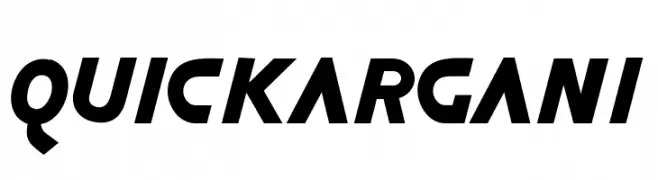
( Jos Schoot Uiterkamp - www.behance.net/JSU )
A bold, hand-drawn font with a rugged, adventurous style.
( K. Bishop Martinez )
A bold serif font with strong vertical strokes and a classic yet modern appeal.
( Lene Arensdorff )
A playful, hand-drawn font with an ink-splattered, grungy style.
( Lene Arensdorff )
A modern, rounded font with geometric and playful elements.
( Luc Mahler )
A bold, artistic font with a hand-drawn, textured style.
( Luc Mahler )
A bold, playful font with unique curves and sharp edges.
( Macul Inc )
A bold, expressive script font with elegant, flowing letterforms.
( Marco Aguayo )
A playful, rounded font with a casual and friendly style.
( Marivo - Marko Jovanovac - markojovanovac.com )
A sleek, modern font with geometric lines and rounded corners.
( Mathias Rue - www.mathiasrue.dk )
A dynamic, brush-style font with an informal, hand-drawn appearance.
( Maxime Tolbecq - www.mplusm.be )
A bold, modern font with a playful and slightly condensed style.
( Muhammad Hasan - www.behance.net/lemet )
A playful, hand-drawn font with bold strokes and a whimsical style.
( Perdana Kurniawan Arta - creativemarket.com/perdanakun )
A whimsical, decorative serif font with playful curls and loops.
( Peter Quini )
A pixelated, retro-style font with a blocky, digital appearance.
( Philipp Kampling - philipp-kampling.de/ )
A bold, geometric font with a futuristic and modular design.
( Phitradesign - Philip Trautmann - www.phitradesign-fonts.com )
A bold, geometric font with a modern and impactful design.
( Roman Paslavskiy - creativemarket.com/seveniwe )
A bold, modern sans-serif font with a slightly condensed style.
( Ryan Williamson )
A sleek, modern font with thin, clean lines and a minimalist design.
( Ryan Williamson )
A sleek, modern font with thin, elegant lines and a geometric style.
( Ryan Williamson )
A sleek, minimalist font with thin, uniform lines and a modern aesthetic.
( Ryan Williamson )
A modern, ultra-thin font with geometric precision and elegance.
( Ryan Williamson )
An ultra-thin, modern font with elegant, clean lines.
( Sandra Sisofo )
A collection of protest posters with bold, expressive typography and imagery.
( Skyhaven Fonts - fonts.plph.co )
A modern, geometric font with bold uppercase letters and numerals.
( Stud Stud )
A bold, playful handwritten font with thick strokes and rounded edges.
( Sven Pels - www.svenpels.com )
A clean, modern sans-serif font with a geometric structure and consistent stroke weight.
( Tom Chalky - tomchalky.com/ )
A flowing, cursive script font with interconnected characters and a bold presence.
( Treize grammes - 13g.fr/ )
A geometric, futuristic font with angular strokes and a modern aesthetic.
( Wellinton Lenzi - www.wellintonlenzi.com )
A geometric, grid-based font with a modern, digital aesthetic.
( Wellinton Lenzi - www.wellintonlenzi.com )
A futuristic 3D outline font with geometric shapes and a modern aesthetic.
( Ydhra Studio - creativemarket.com/ydhra )
A bold, flowing script font with elegant curves and smooth strokes.
( dccanim - Draghia Cornel - dccanim.deviantart.com )
A bold, striped font with high contrast and a modern, decorative style.
( tudy1311 - Tudor Banciu - www.tudy1311.com )
A bold, decorative font with historical and artistic influences.
( Adobe - www.adobe.com )
A collection of bold, high-contrast icons and symbols in a modern style.
( Chancleta Power - memoryofwar.com/fonts )
A bold, graffiti-inspired font with a hand-painted, textured style.